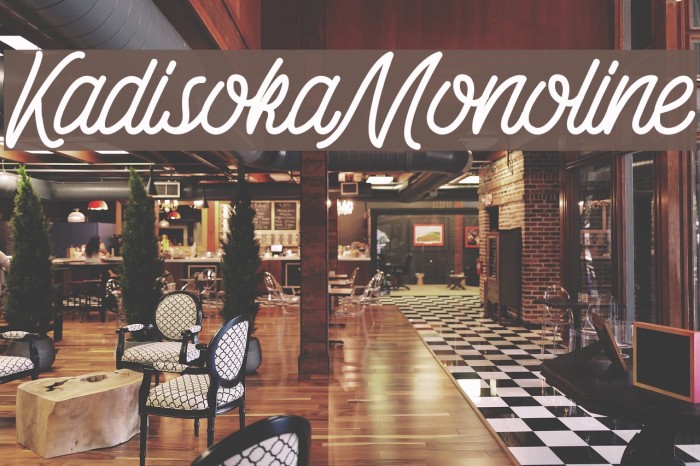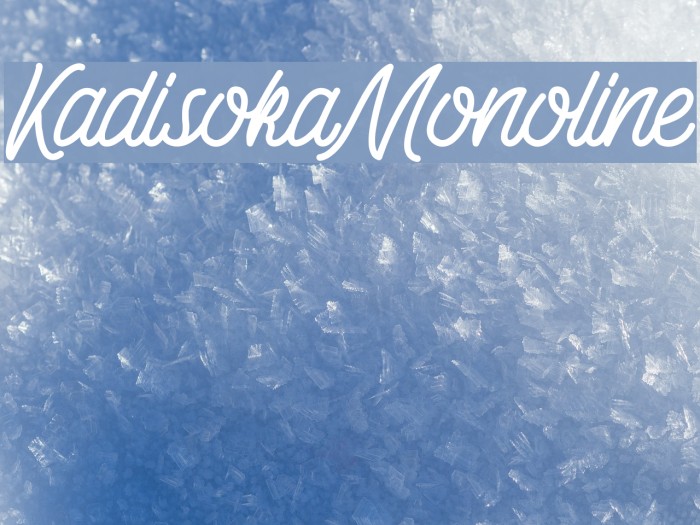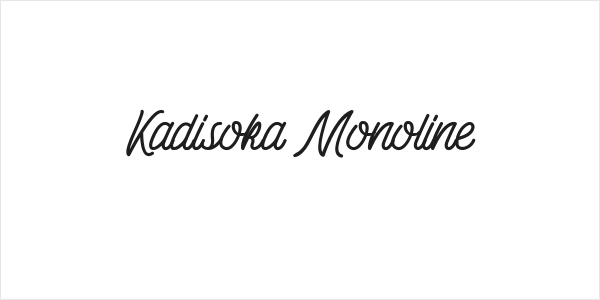
Kadisoka-Monoline Font
Kadisoka-Monoline Description
This font features a smooth, flowing monoline script style that exudes elegance and fluidity. Each character is crafted with a consistent stroke width, creating a harmonious and cohesive appearance. The uppercase letters are bold and prominent, while the lowercase letters maintain a graceful and connected form. The numerals are clear and easily distinguishable, complementing the overall script style. Special characters are seamlessly integrated, maintaining the font's aesthetic. This font is perfect for projects that require a touch of sophistication and style.